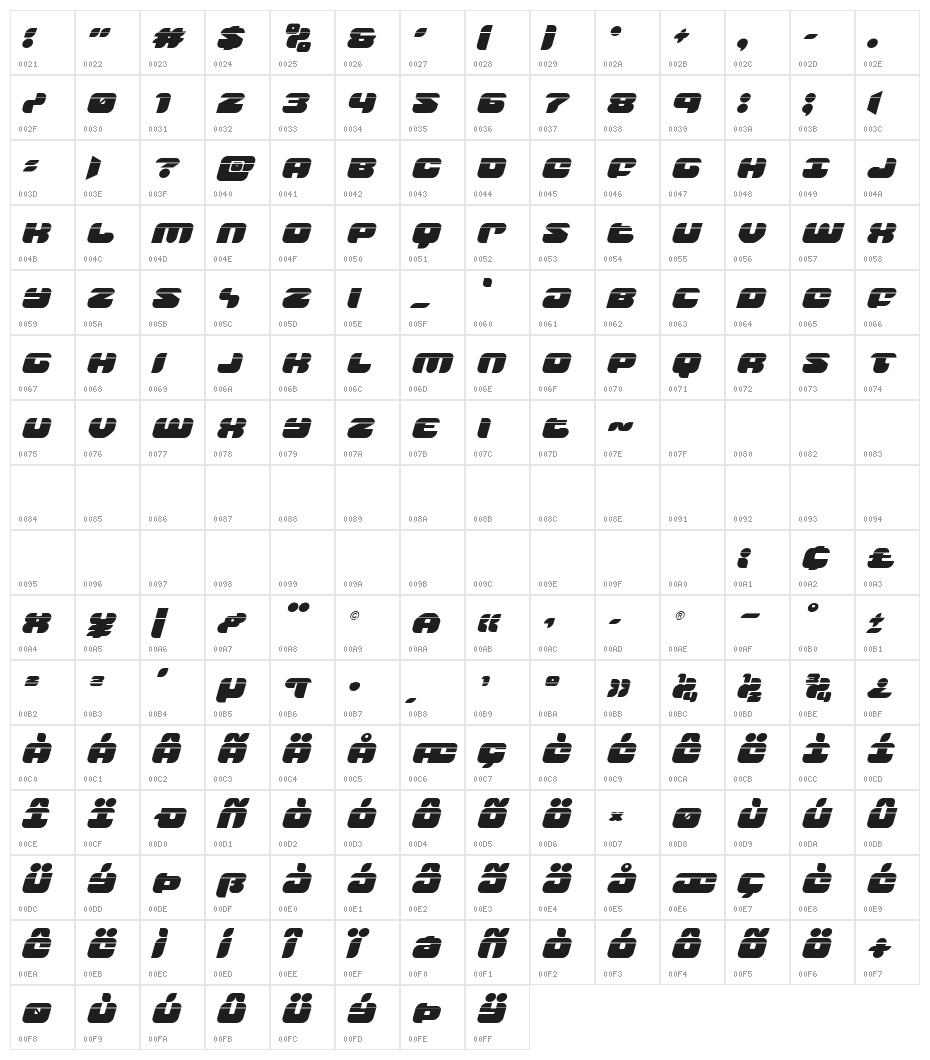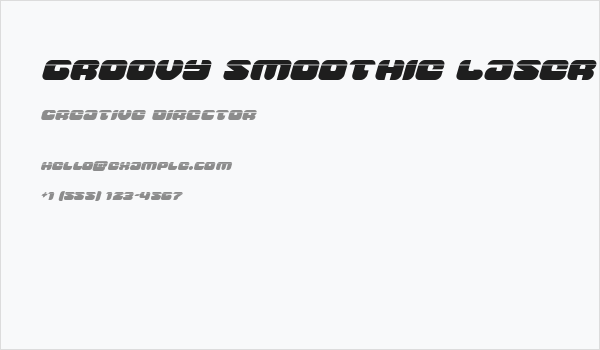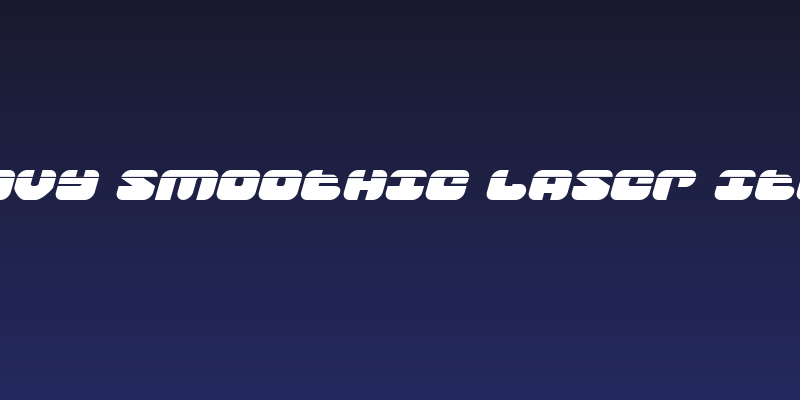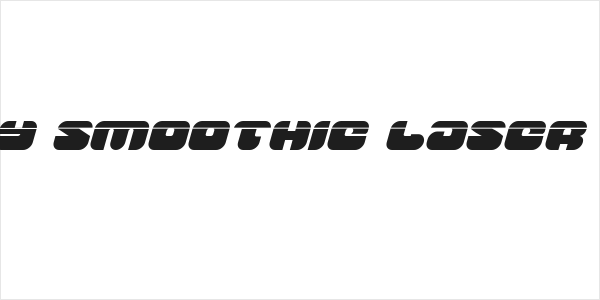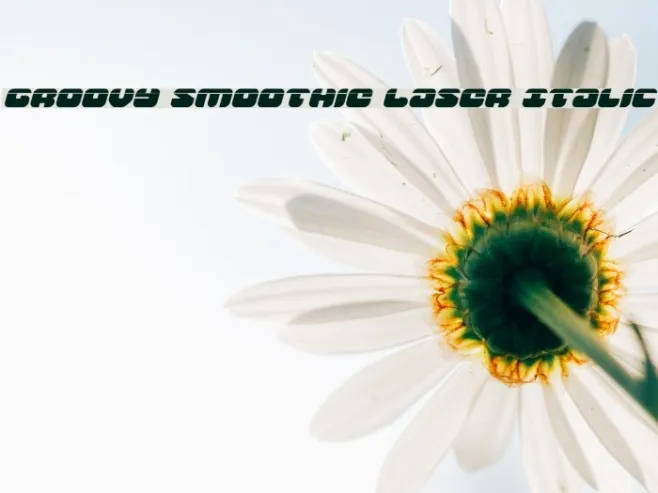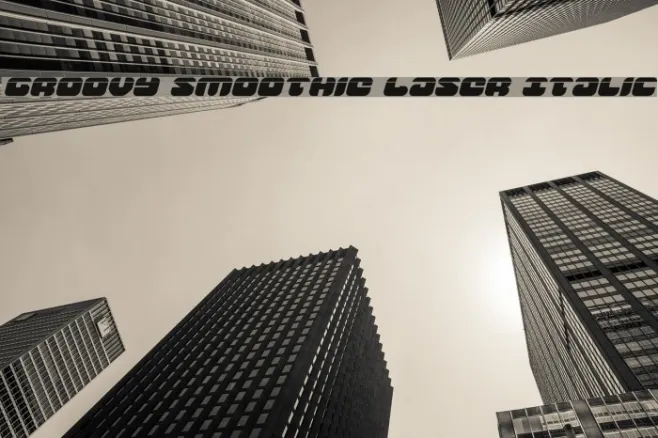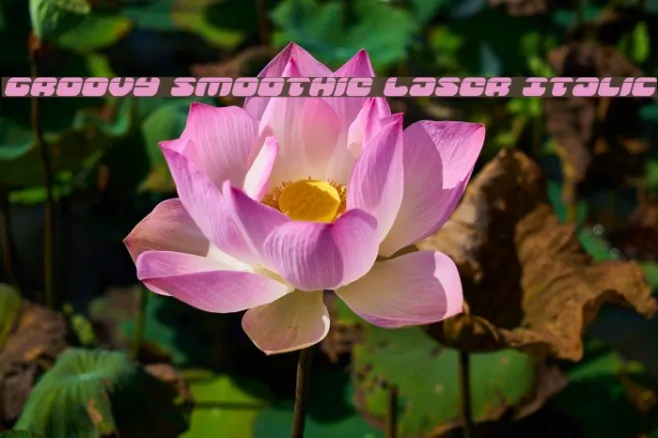
Groovy Smoothie Laser Italic Font
Groovy Smoothie Laser Italic Description
This font exudes a futuristic and dynamic vibe with its bold, rounded characters that seem to flow seamlessly into one another. The smooth curves and laser-like precision give it a sleek, modern appearance. Each letter is crafted with a sense of movement, as if they're racing forward. The italic slant adds to the sense of speed and energy, making it ideal for projects that require a sense of motion or modernity. The characters are tightly spaced, enhancing the compact and cohesive look. The high contrast between the thick and thin strokes further emphasizes its boldness and clarity.
| Proposed Projects | Ideal for sci-fi themed designs, tech company logos, video game titles, and dynamic posters. |